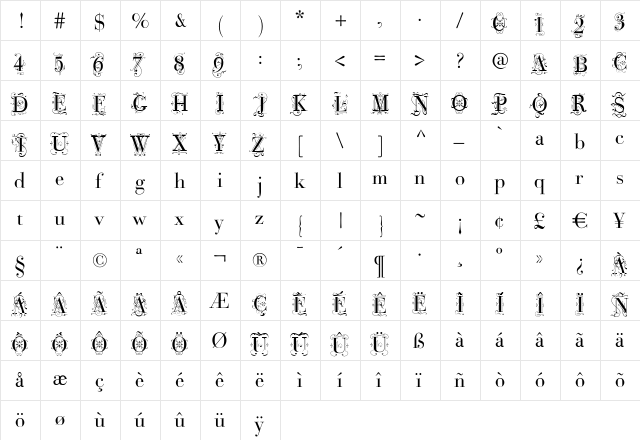
Bodoni Classic Deco Roman Roman Medium
Design Context for Bodoni Classic Deco Roman Typeface
Bodoni Classic Deco Roman wears its vintage influences proudly, with letterforms that recall mid-century signage, classic packaging, and nostalgia-driven design.
Perfect for vintage-inspired branding, retro packaging, nostalgia campaigns, and period-accurate editorial design.
Font Pairing: Combine Bodoni Classic Deco Roman with a simple slab or neutral sans — period-accurate companions reinforce the vintage feel without competing for attention.
Pro Tip: Use Bodoni Classic Deco Roman for headlines and pull quotes rather than body copy — its personality is best appreciated in short, focused bursts.